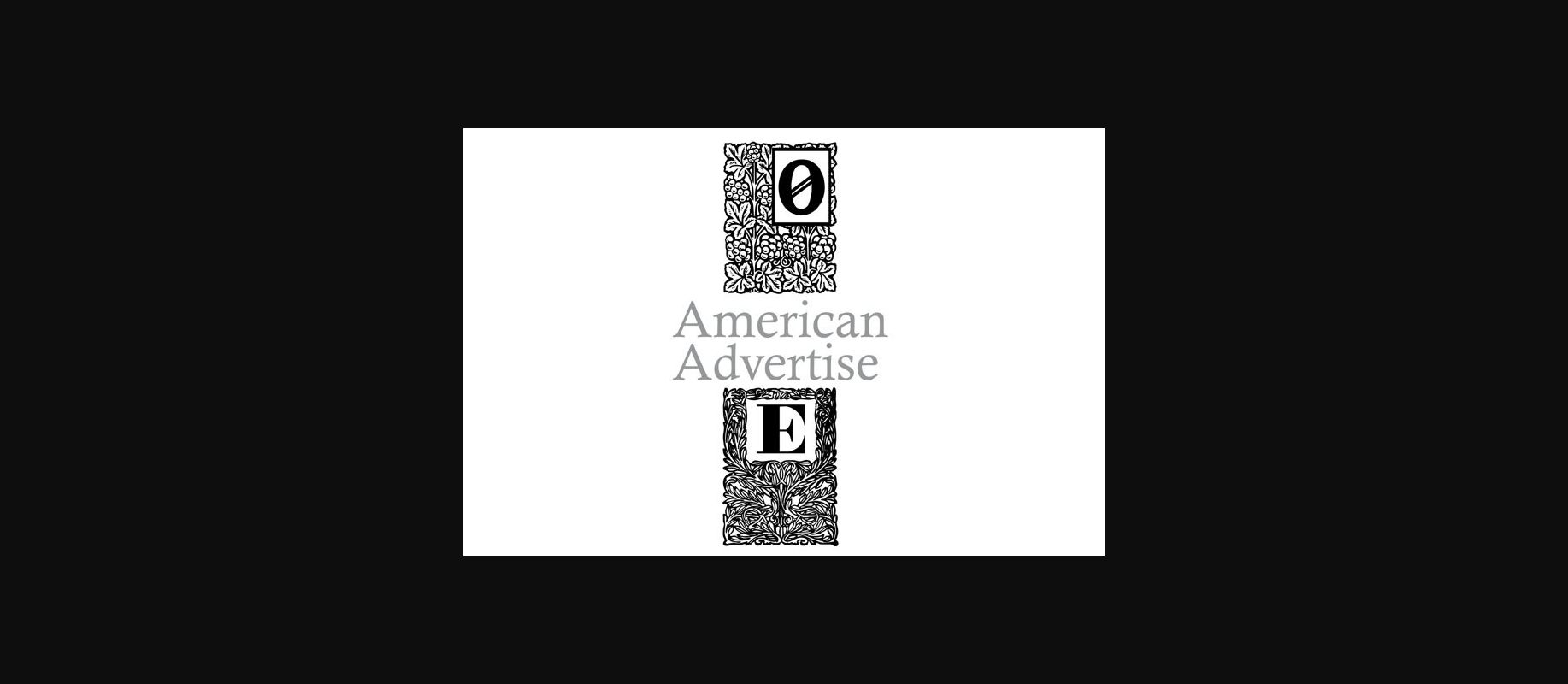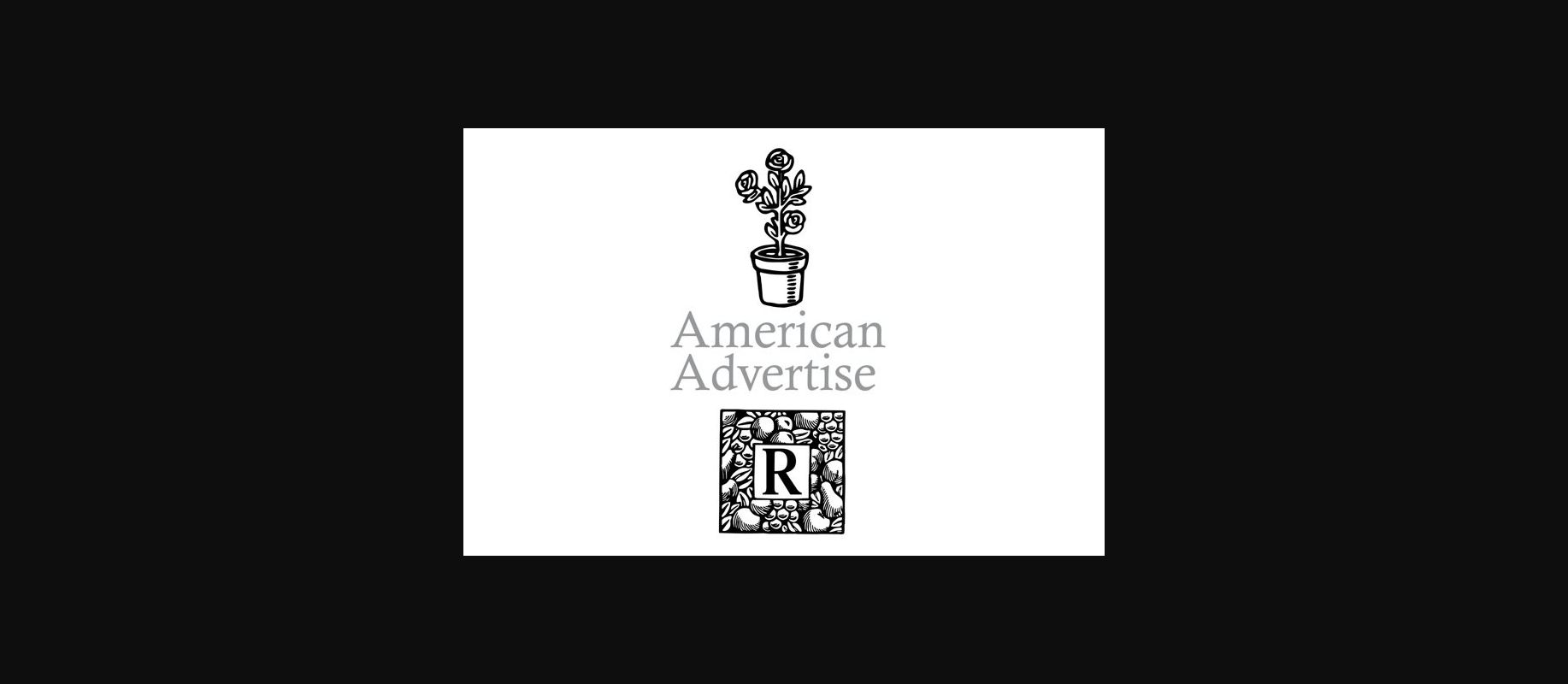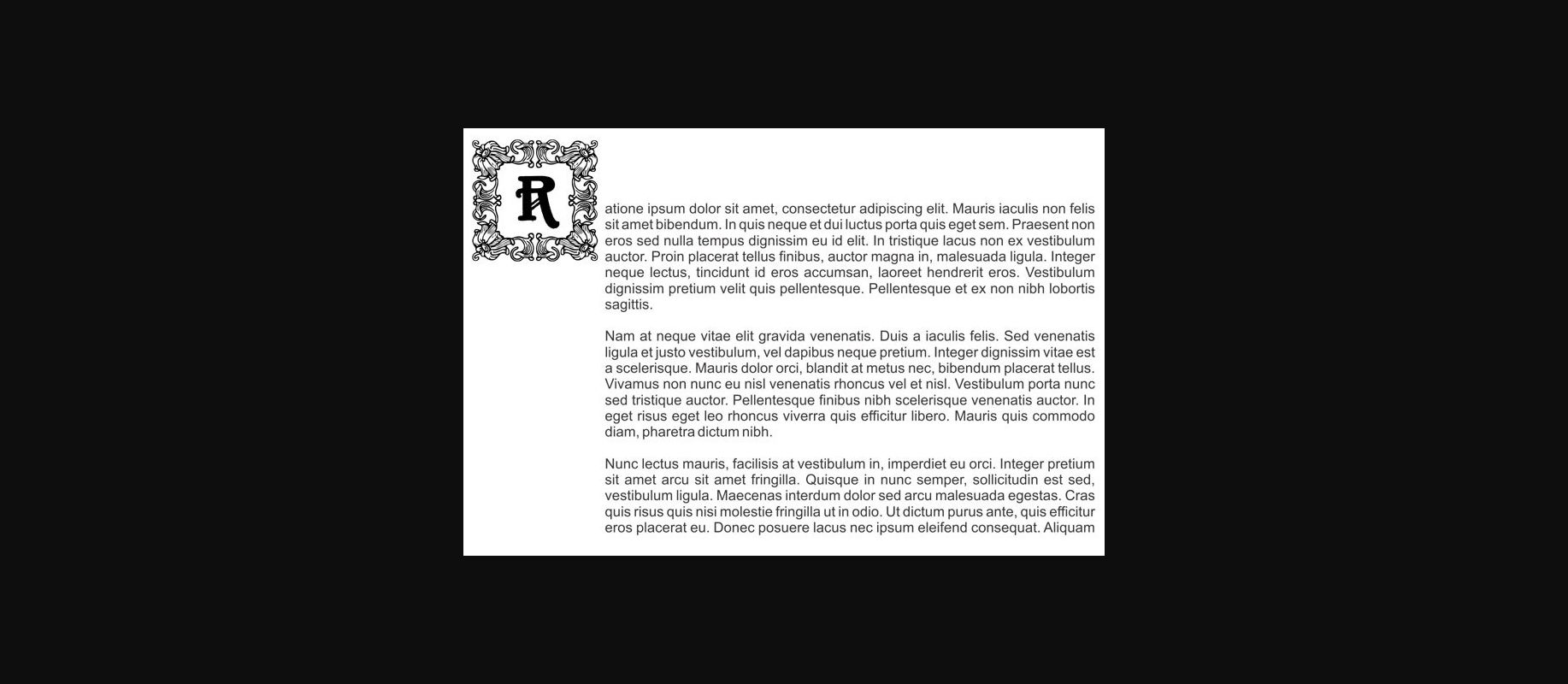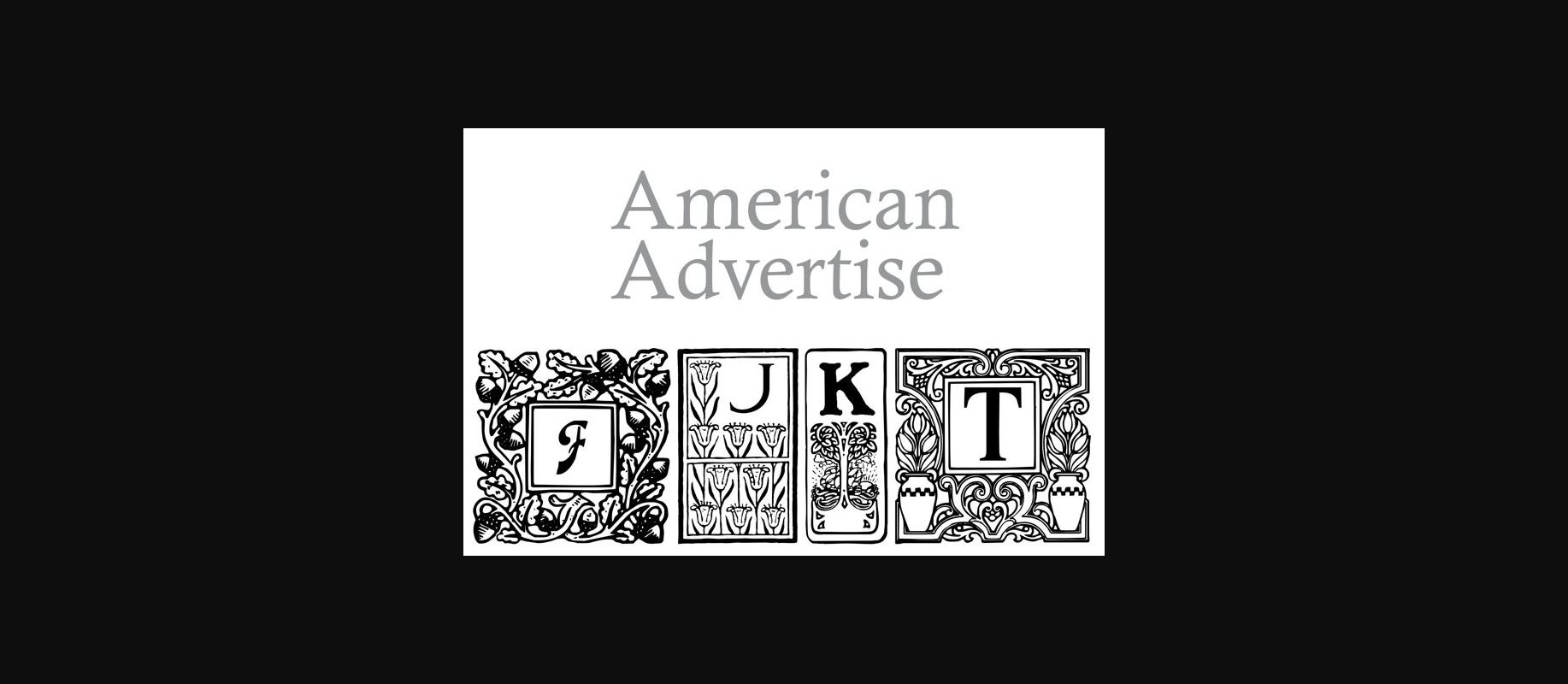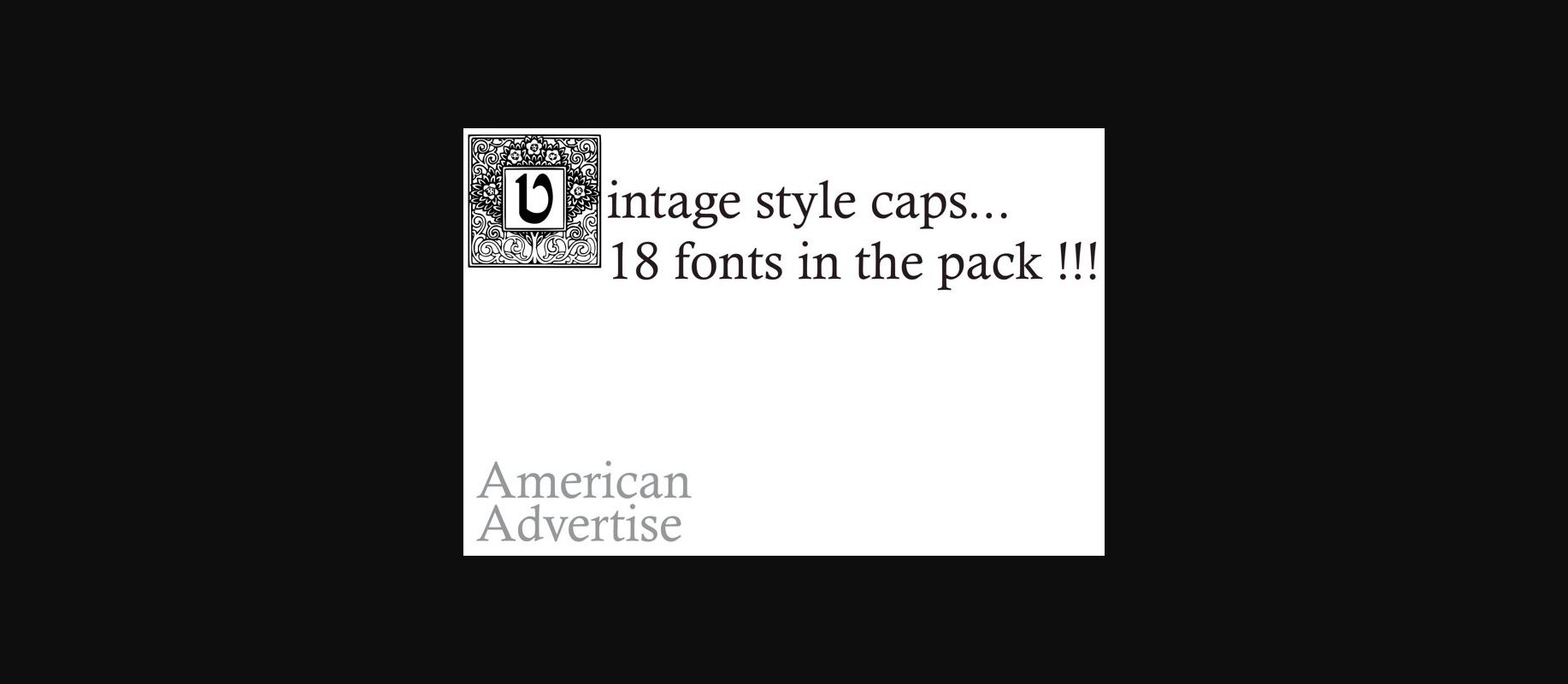
American Advertise Pack Font
About American Advertise Pack Font
Each letter is beautifully decorated with square patterns, reminiscent of classic designs from the past. This unique font effortlessly combines modern aesthetics with a nostalgic flair, making it perfect for adding a touch of sophistication to your projects. Its squares with vintage motifs give it a timeless appeal, making it an excellent choice for invitations, logos, and any creative endeavor that seeks to capture a sense of old-world elegance. Embrace the beauty of the past with our exquisite square-patterned decorative font.